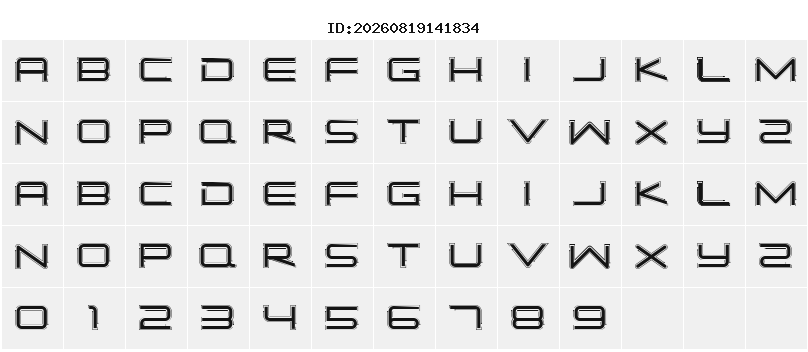
Simple Tech Bold 02 Preview
• Font Name: Simple Tech Bold 02
• Font Style: Simple Tech Bold 02
• Full Font Name: Simple Tech Bold 02
• Designer: Hanif Syahputra
About Simple Tech Bold 02.ttf
Simple Tech Bold 02.ttf is a modern, elegant sans-serif font designed for ultimate readability and visual harmony. Perfect for branding, headlines, web design, and print materials.